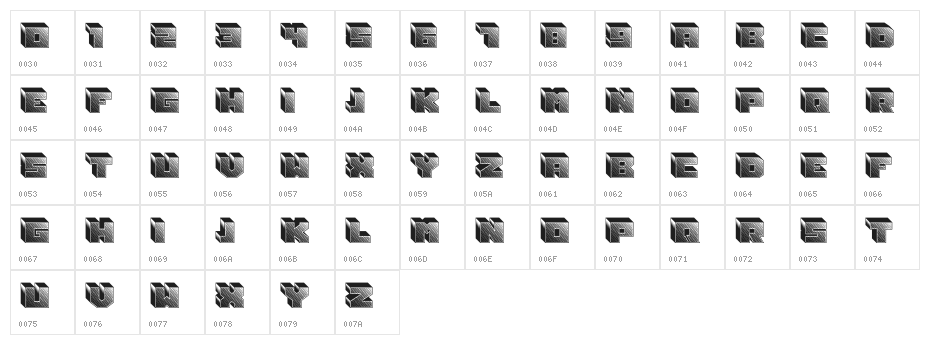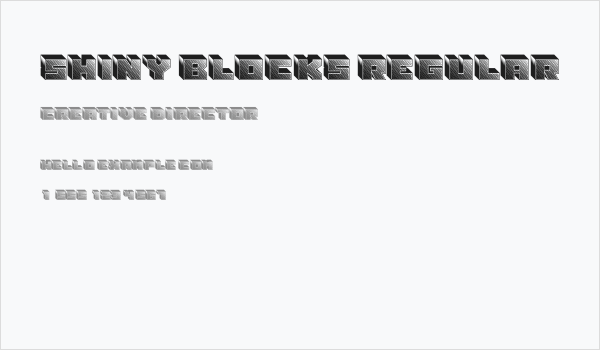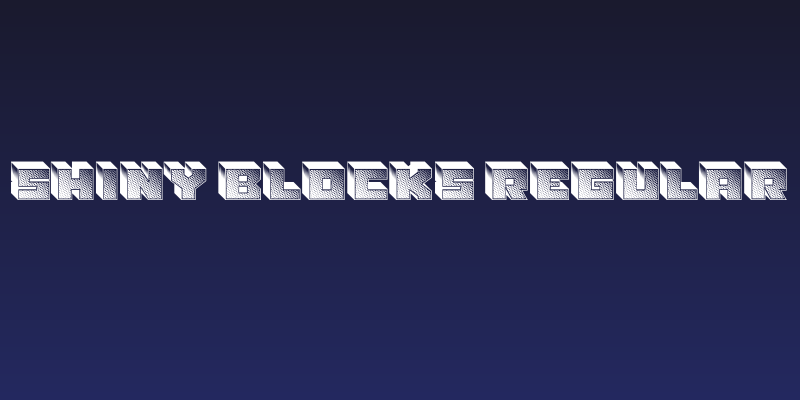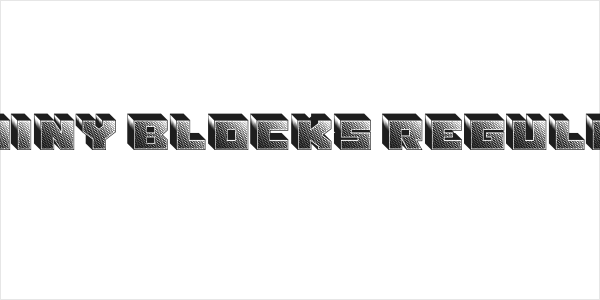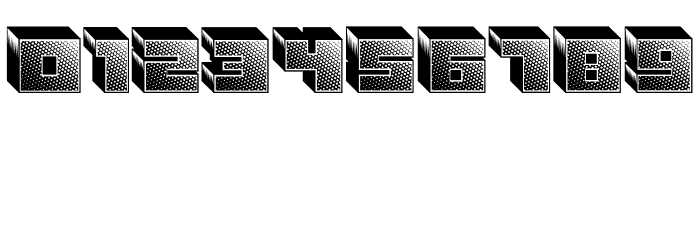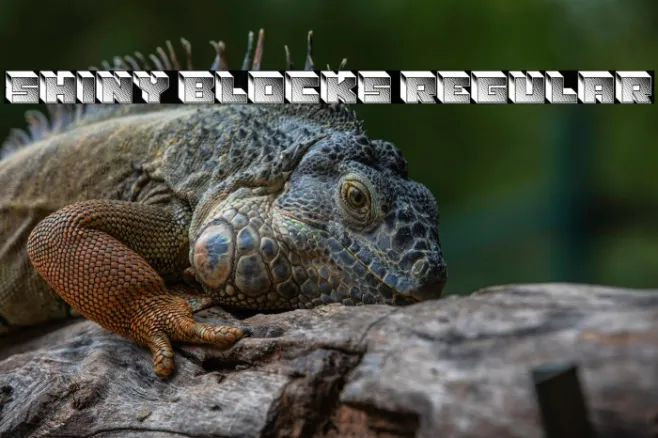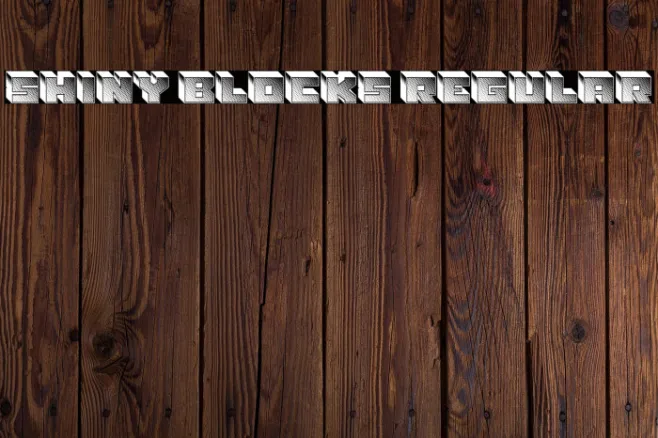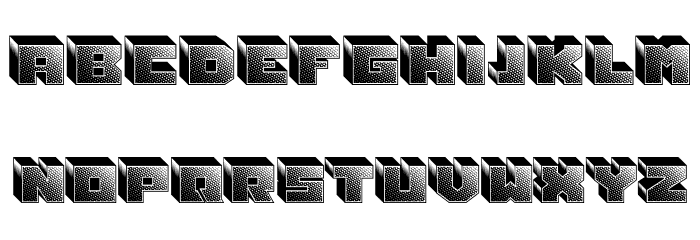
Shiny Blocks Regular Font
Shiny Blocks Regular Description
This font features a bold, three-dimensional block style with a shiny, metallic appearance. Each character is designed with a strong, geometric structure, giving it a robust and impactful look. The letters and numbers are filled with a dotted texture that enhances the shiny effect, making them stand out with a unique visual appeal. The font's design is reminiscent of retro-futuristic aesthetics, combining a sense of nostalgia with a modern twist. The characters are uniformly spaced, maintaining a consistent and balanced appearance across all glyphs. This font is ideal for projects that require a striking and memorable visual impact, such as posters, headlines, and branding materials.
| Overall Style | Retro-Futuristic |
| Proposed Projects | Ideal for posters, headlines, branding, and any design needing a bold visual impact. |